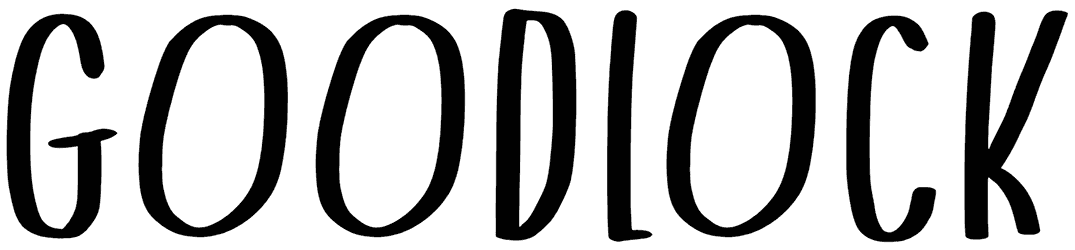
Doodle Gum Font
If you are going to design a text layout with a joyful mood, Doodle Gum sparks your interest. The letters are designed with rounded edges and are filled. Don’t hesitate and try this doodles font right now. Head over to our boundless library, you’ll find what you need.
Designed by: imagex